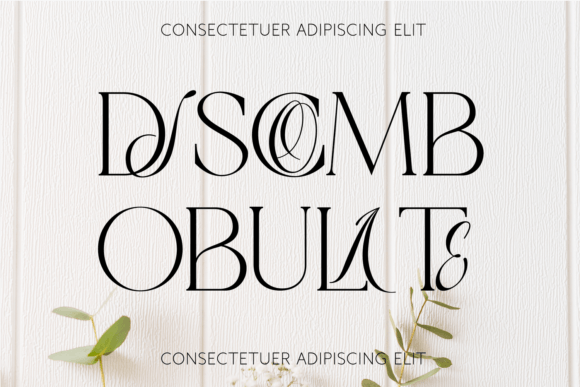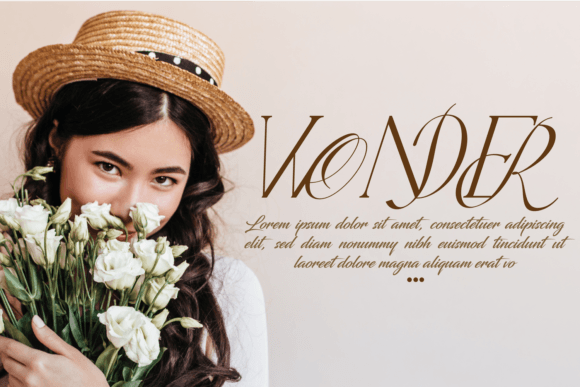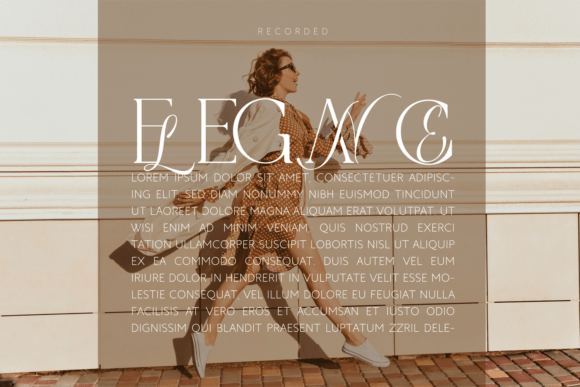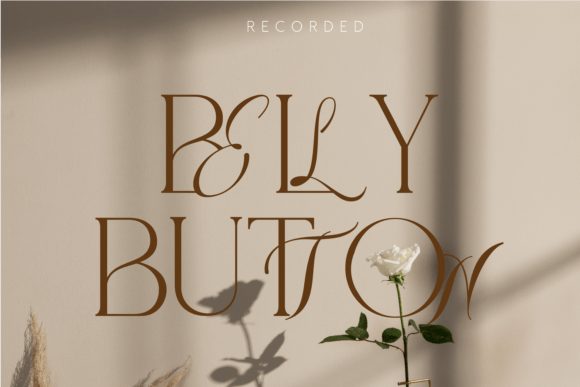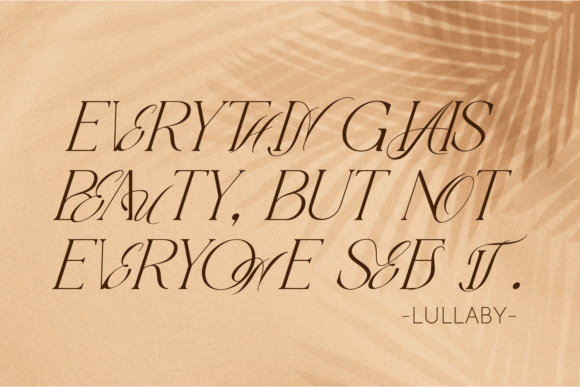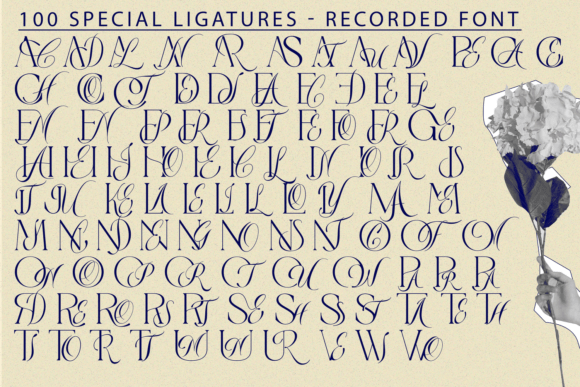
Introduction to Recorded Font
Have you ever been working on a creative project, staring at a blank page, trying to find the perfect font to bring your design to life? You know, that moment when the right typography can make all the difference? For designers, finding a high-quality font that perfectly captures the essence of their vision can be a challenge. But what if you could have access to a versatile font that combines the elegance of classic calligraphy with the sophistication of modern serif fonts?
Enter the Recorded Font – a luxurious mix of classic calligraphy and modern serif fonts that will elevate your design to new heights. With its PUA encoded design, you can easily access all the amazing glyphs and ligatures, making it a valuable resource for any designer looking to create a unique and eye-catching design. Whether you’re working on a logo, name, or display title, the Recorded Font is sure to impress.
Key Features of Recorded Font
- Recorded Font is designed to be highly versatile, suitable for a wide range of applications, from print materials to digital displays.
- Recorded Font is an excellent design resource for professionals and hobbyists alike, offering a high-quality solution for any creative project.
Honest Review: Recorded Font
- ✨ Great aesthetic: Recorded Font boasts a unique and stylish design that can elevate any creative project.
- ✨ High-quality design: The font is well-crafted and exhibits a level of attention to detail that’s hard to find in free design resources.
- ⚠️ Limited font styles: While Recorded Font is a great resource, it’s limited to a single font style, which may not be suitable for projects that require multiple font options.
The Recorded Font is a versatile design resource that can be used in a variety of creative projects, including logos, business cards, and social media graphics. It’s also a great choice for presentations and reports due to its high quality and professional look.
Tips for Getting the Most Out of it
To get the most out of the Recorded Font, use it on a transparent background to give your design a clean and modern look. You can also experiment with different font sizes, colors, and alignments to create a unique and eye-catching design.